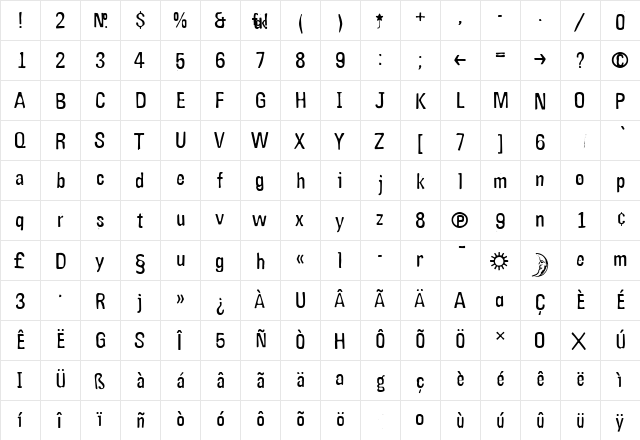
Gagamond Medium
Design Context for Gagamond Typeface
Gagamond offers clean, dependable letterforms without strong stylistic allegiance, making it a practical choice for designers who need flexibility.
Pro Tip: Use Gagamond in both headline and body roles to test its range before committing to a single application.